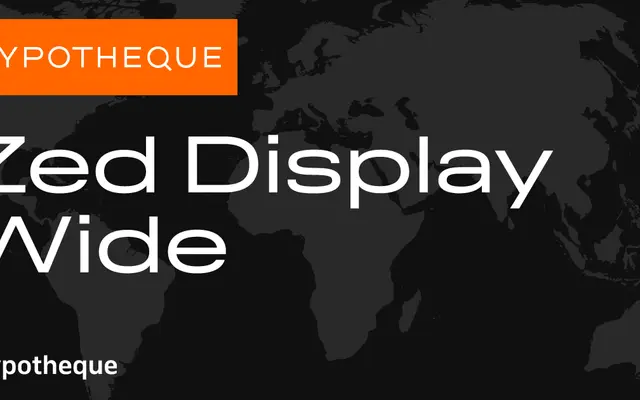
Zed Display Wide
The wide display cut of Typotheque's Zed system, a vast geometric sans spanning nine widths, three subfamilies and nine weights with slanted and backslanted variants throughout.
Zed Display Wide occupies the broader end of one of the most systematically thorough geometric sans families available, sitting within a system that ranges from Extra-Compressed to Extra-Wide across Display, Round and Text subfamilies. Each weight from Hairline to Black comes in upright, slanted and backslanted cuts, each named after a world city. A variable font edition consolidates the width and weight axes into a single file for flexible deployment across editorial, identity and large-scale typographic work.
Zed Display Wide is part of a large geometric sans system with display-oriented proportions; the wide width variant sits at the broader end of an extensive width range spanning from Extra-Compressed to Extra-Wide.